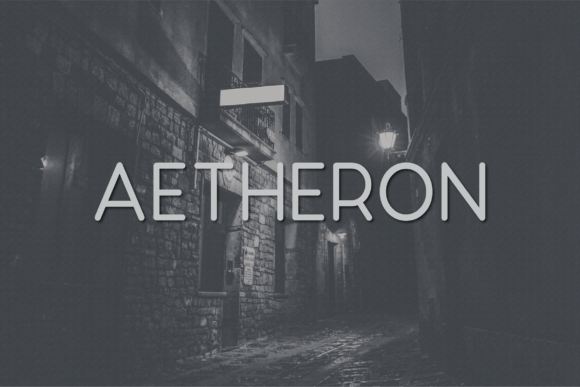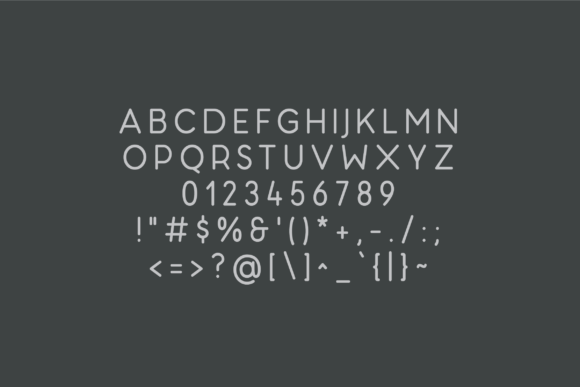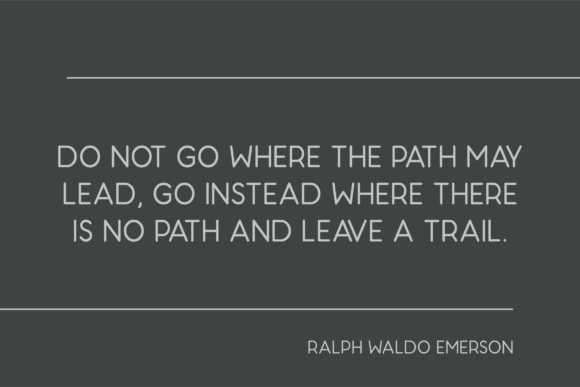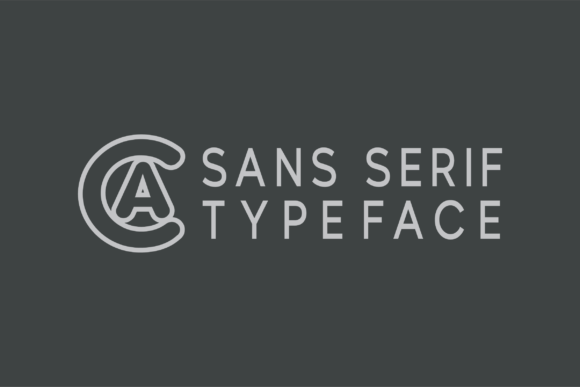
Unlocking the Secrets of Aesthetic Design
As designers, we’ve all been there – staring at a blank canvas, desperate for the perfect font to bring our vision to life. The thrill of discovering that elusive combination of style and sophistication is a sensation like no other. For those who crave a typeface that exudes modernity and elegance, we’re excited to introduce Aetheron – a sans serif powerhouse that’s about to revolutionize your creative workflow.
Aetheron Font is more than just a font – it’s a versatile tool that can elevate your designs from basic to breathtaking. With its comprehensive character set and sleek aesthetic, Aetheron is the perfect choice for logos, advertisements, magazines, and any project that demands a touch of sophistication. Whether you’re a seasoned pro or a design newbie, Aetheron Font is an invaluable asset that will take your designs to the next level.
Aetheron Font Key Features
- Font Family: Aetheron Font
- Character Set: Latin, Cyrillic, Greek, and Extended Latin characters
- Unique Characteristics: Aetheron Font features a futuristic and high-tech aesthetic, with a blend of geometric and organic shapes, making it ideal for sci-fi and tech-related projects.
Aetheron Font Review
I recently had the chance to work with the Aetheron font, and I have to say, it’s been a mixed bag for me. ✨ Here are some of the things that I think work well:
- Unique aesthetic: Aetheron has a distinct, otherworldly feel to it that can really help a design stand out.
- Good for titles and headings: The font’s bold, striking lines make it perfect for grabbing attention in titles and headings.
- Works well in digital: Despite being a relatively new font, Aetheron looks great on screens and is easy to read.
However, there are some limitations to keep in mind: ⚠️
- Limited character set: Aetheron’s character set is relatively small, which can make it difficult to use for longer blocks of text.
- Not suitable for body text: While it’s great for titles and headings, Aetheron can be difficult to read in larger blocks of text due to its unique style.
- Not as versatile as other fonts: Aetheron’s distinctive style can be a bit limiting when it comes to creating a cohesive design.
Overall, I think Aetheron is a solid choice for designers looking to add a bit of flair to their work. While it’s not without its limitations, it can be a great addition to the right design project.
Tips for Getting the Most Out of Aetheron Font
For best results, use Aetheron Font in conjunction with high-contrast backgrounds and bold, eye-catching graphics. Experiment with different font sizes and styles to create visual interest. You can also use Aetheron Font in combination with other fonts to create a unique and striking visual identity.
Aetheron Font is ideal for use in branding and marketing materials, such as business cards, brochures, and website headers. It’s also great for use in presentations, reports, and other documents where a bold, eye-catching font is needed.